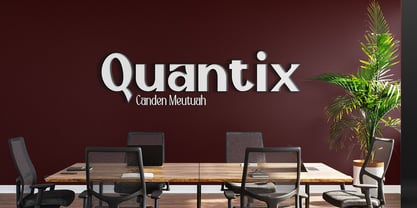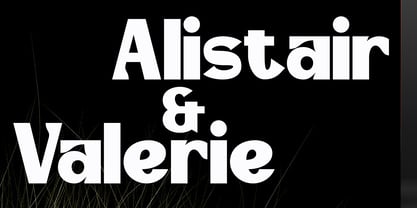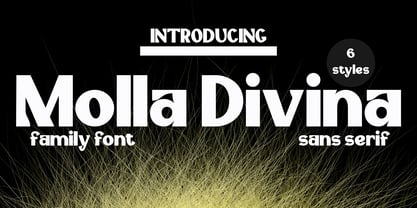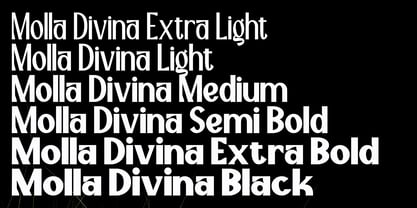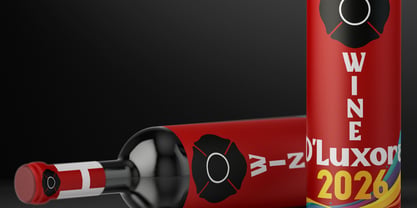
Molla Divina
by Canden Meutuah
The Molla Divina Font Family was designed by Canden Meutuah and published by Canden Meutuah. Molla Divina contains 9 styles and family package options. More about this family
Lavache is a bold and stylish condensed sans serif font family, blending retro aesthetics with modern minimalism. Designed with uppercase and lowercase characters, Lavache features bold proportions, clean lines, and bold curves, giving your designs a bold personality. This font is perfect for posters, logo designs, editorial titles, album covers, fashion branding, and display titles, capturing attention with its distinctive touch.
Designers: Canden Meutuah
Foundry: Canden Meutuah
Molla Divina